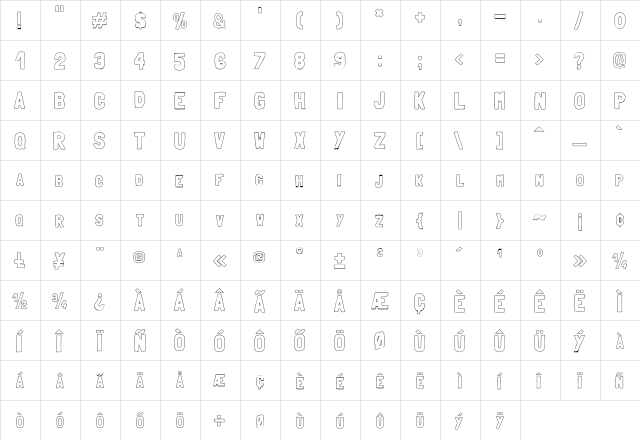
Folk outline Font Preview
Folk outline
Folk outline Font Details
| Style | outline |
| Foundry | Marcelo Magalhaes |
| Designer | Marcelo Magalhaes |
Design Context for Folk Typeface
Folk is built around its visual character rather than neutral utility — its distinctive forms are designed to make an impression at display sizes.
Font Pairing: Pair with a clean neutral sans-serif for body copy to let Folk's character lead without overwhelming the composition.
Pro Tip: Treat Folk as the centrepiece of your typographic hierarchy. One strong heading set in a decorative face can carry an entire layout.